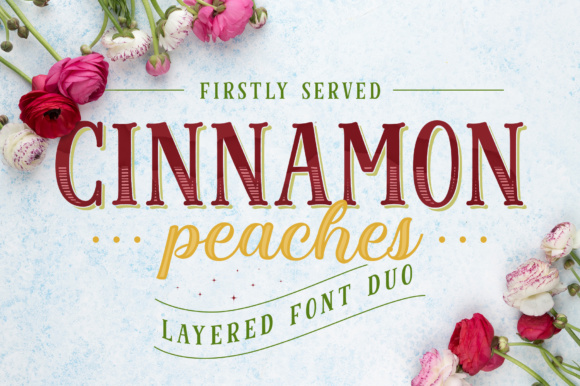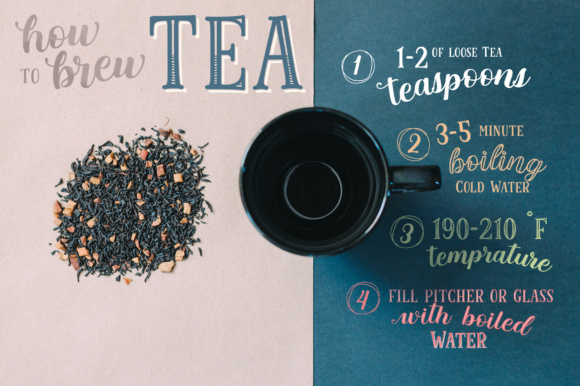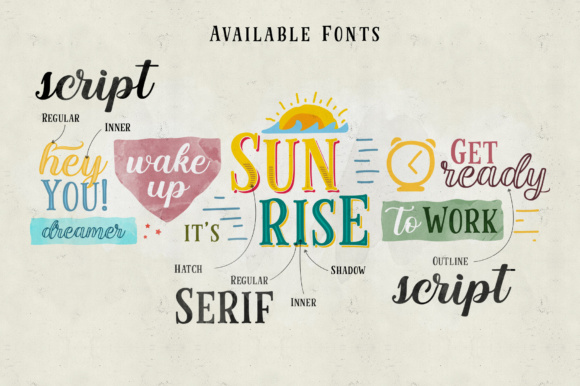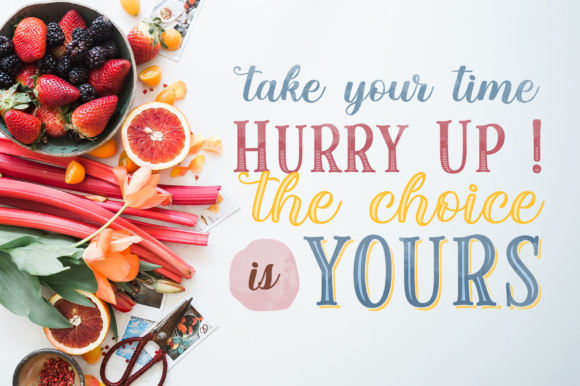
About Cinnamon Peaches Family Font
Cinnamon Peaches is a beautiful family of layered fonts. It includes serif and script styles, which are both layered. You can add shadow, inline or hatch on the serif styles. Changing the color of the other layer is just as easy as changing the standard color of the fonts but it’s more deep in detail.